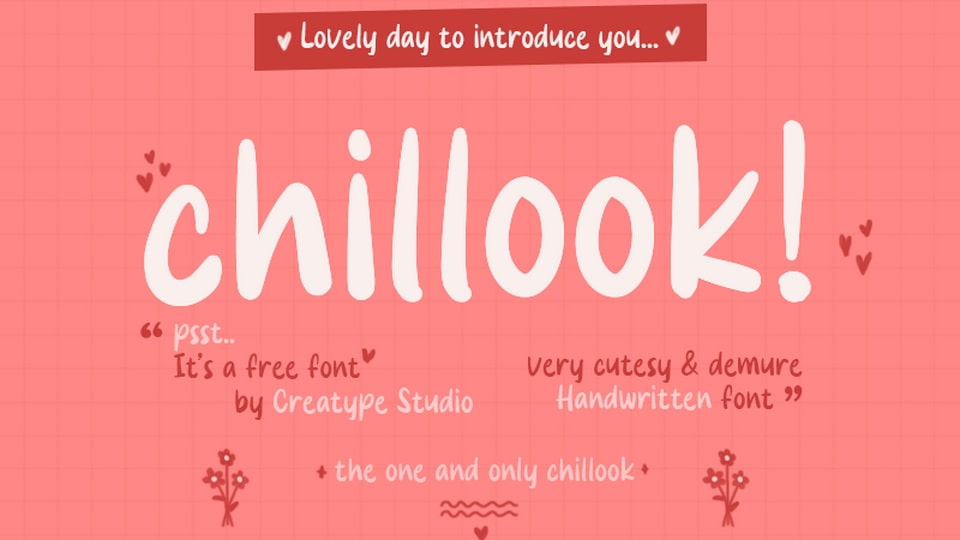
Chillook is a cute and demure hand-drawn font with a soft, comic-style charm. Each letter has gentle curves and subtle, rounded details that bring a sense of warmth and quiet elegance. Designed to feel approachable and friendly, Chillook font is perfect for projects that want to convey sweetness without being too bold, such as children’s books, cozy branding, or personal stationery. The delicate hand-drawn lines and slight imperfections add a touch of sincerity, making it an ideal choice for designs that aim to feel both charming and welcoming.
Great for logos, packaging, and heartfelt messages, Chillook font adds a soft, demure touch with a playful spirit.